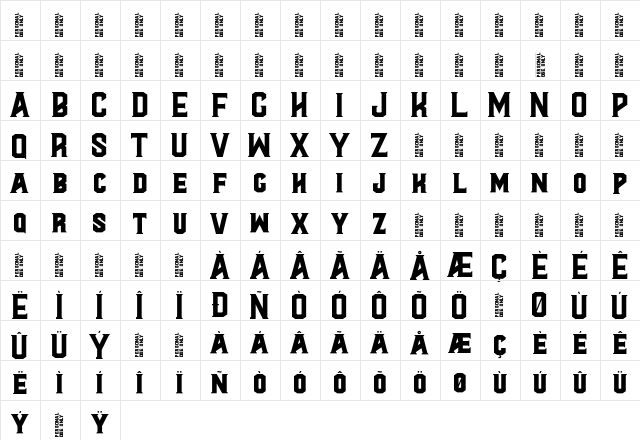
Al Valenciaga PersonalUseOnly Normal
Design Context for Al Valenciaga PersonalUseOnly Typeface
Al Valenciaga PersonalUseOnly is a composed and adaptable typeface that performs quietly and consistently across a wide range of design contexts.